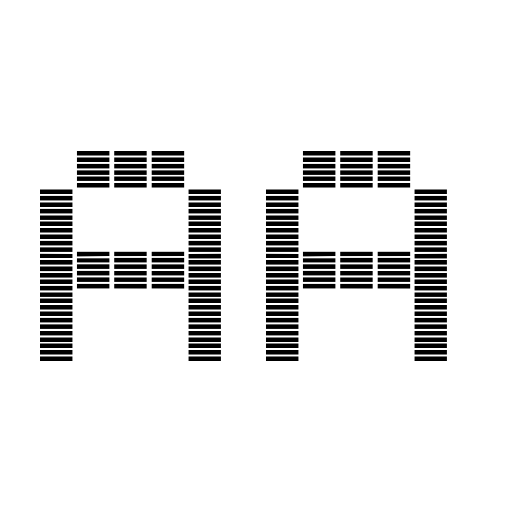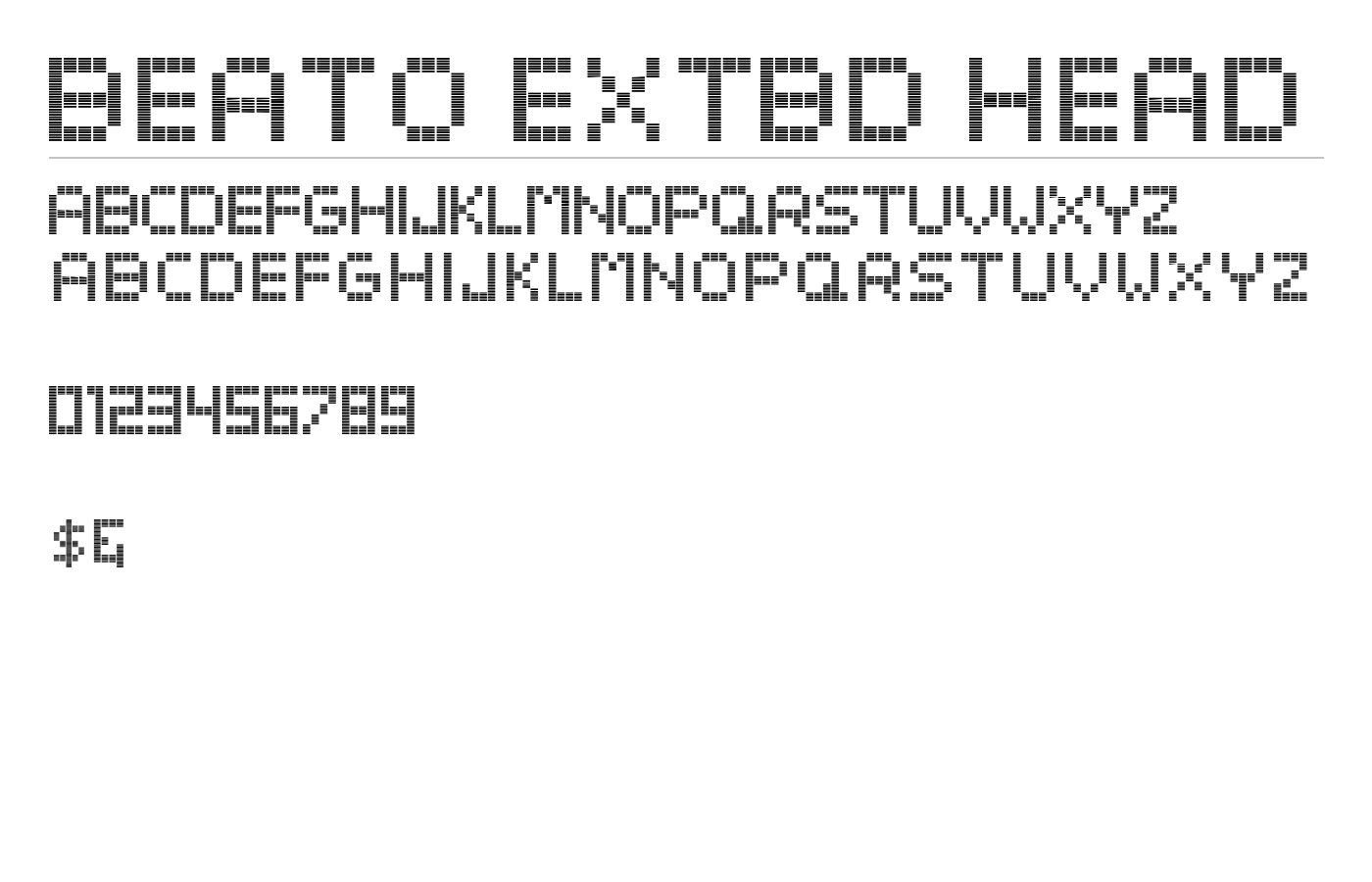
Beato is a distinctive monospaced sans serif font characterized by its pixelated, grid-like structure that evokes a digital, retro tech vibe. Its uniform weight and narrow width give it a clean, mechanical look, making it perfect for designs needing a modern, tech-inspired aesthetic such as coding environments, futuristic branding, and digital displays. The font's precise, blocky forms deliver clarity and a strong visual impact, ideal for headlines and logos that want to convey innovation and a cutting-edge atmosphere.
Beato Font
About Beato Font
| Font family | Beato Font |
| Designer | RAVI KUMAR |